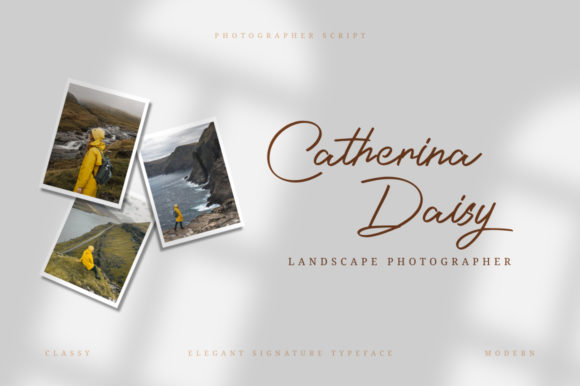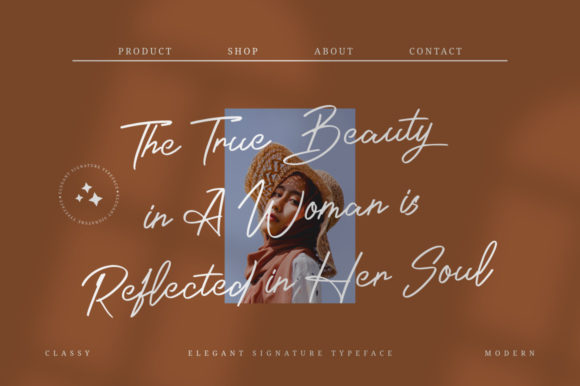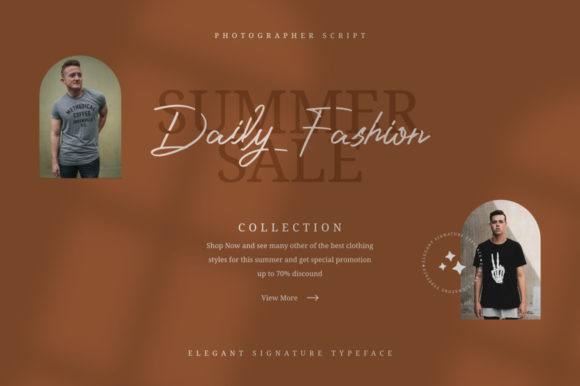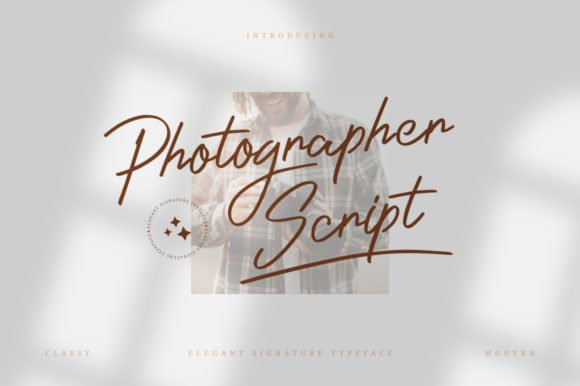
Introduction to Photographer Script Font
Photographer Script is an exquisite handwritten font, masterfully designed to become a true favorite.
Key Features of Photographer Script Font
Why Choose Photographer Script Font?
Photographer Script Font offers exceptional quality and versatility, making it a valuable addition to your design toolkit. Whether you’re creating for personal projects or commercial use, Photographer Script Font delivers professional results.